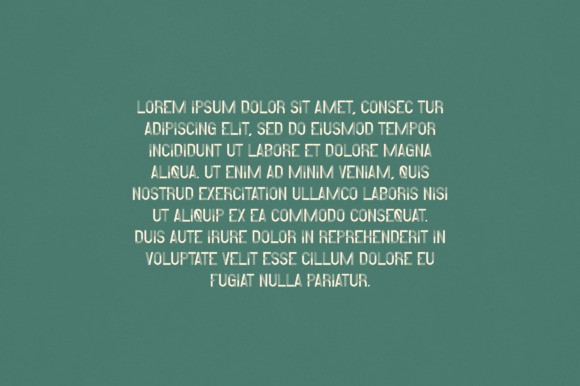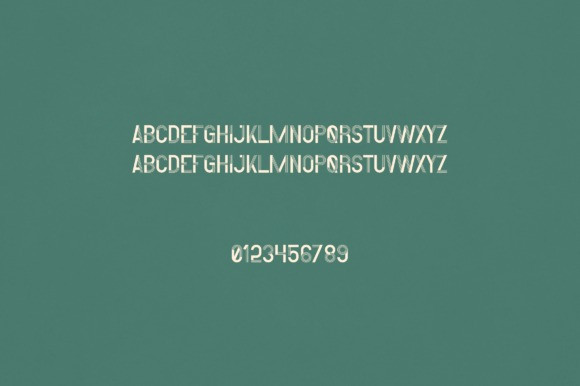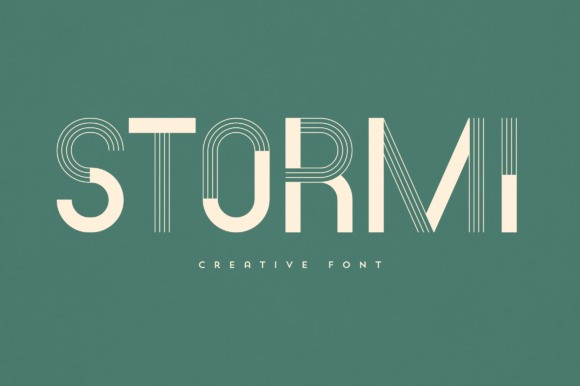
Stormi Font
Stormi Font is an elegant and versatile display font that will make your typography truly unique! It will enchant every logo, branding, headline, or plain text!